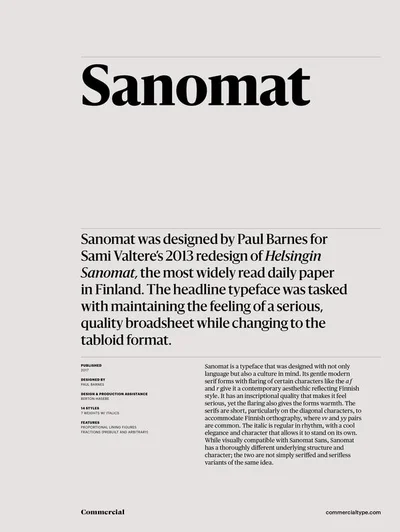
Lora vs Sanomat
Lora is a popular open-source alternative to Sanomat's editorial design. At 78% similarity, Lora delivers a elegant, classic aesthetic. Compare which works better for newspapers and editorial projects.
Recommended: Lora
- Variable font with continuous weight adjustment
- Supports 5 scripts including cyrillic and cyrillic-extended
- Delivers a elegant, classic, sophisticated aesthetic
- Popular in legal-law and education-academia design
- Versatile enough to replace 17+ premium fonts
Consider: Sanomat
- Designed specifically for newspapers and editorial